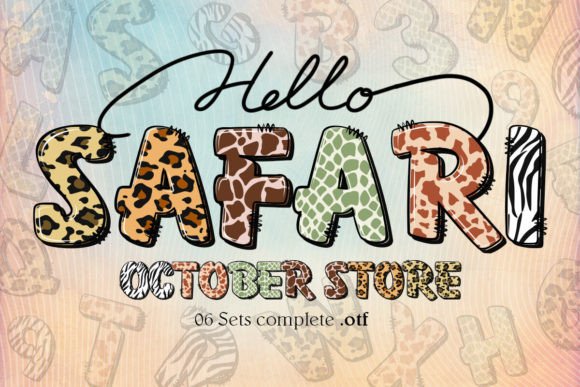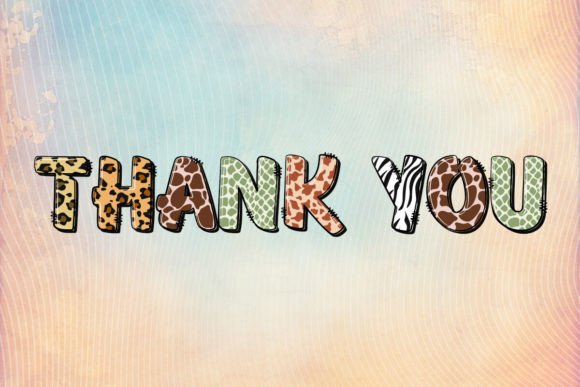
Safari Font
Immerse yourself in the wild beauty of the Safari font, meticulously crafted to bring the energy of the zoo right into your design projects. Inspired by the sweeping landscapes of summer in the African savannah, this font boasts a touch of natural elegance.
Each letter stirs the thrill of an animal adventure, embodying the spirit of the zebra, giraffe, leopard, and majestic tiger. Safari font, for those who yearn for a touch of wilderness in their typographic journeys.